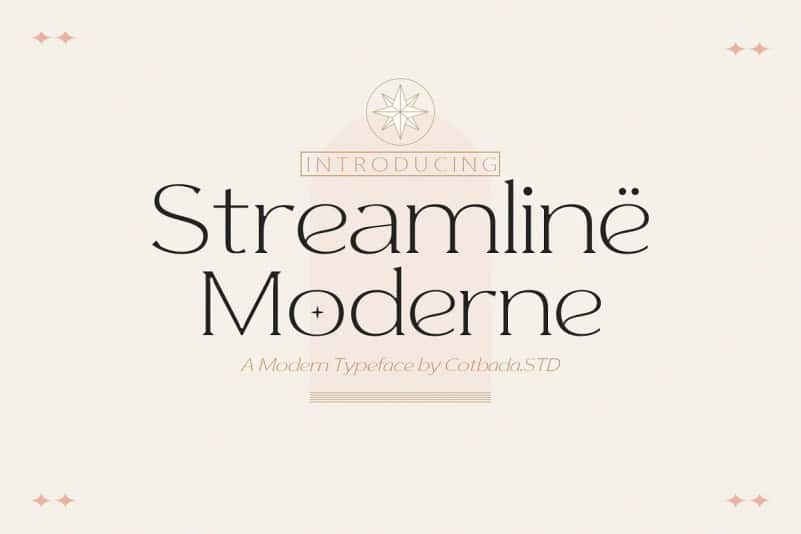
Streamline Moderne Serif Font – elegant serif with beautiful contrast. Made from font designer named Cotbada_studio. Create beautiful wedding invitations, use it as an elegant solution for your next magazine layout,logo, powerpoint templates design , quotes teks or choose Streamline Moderne for any graphics that require a sleek look with a vintage flair.